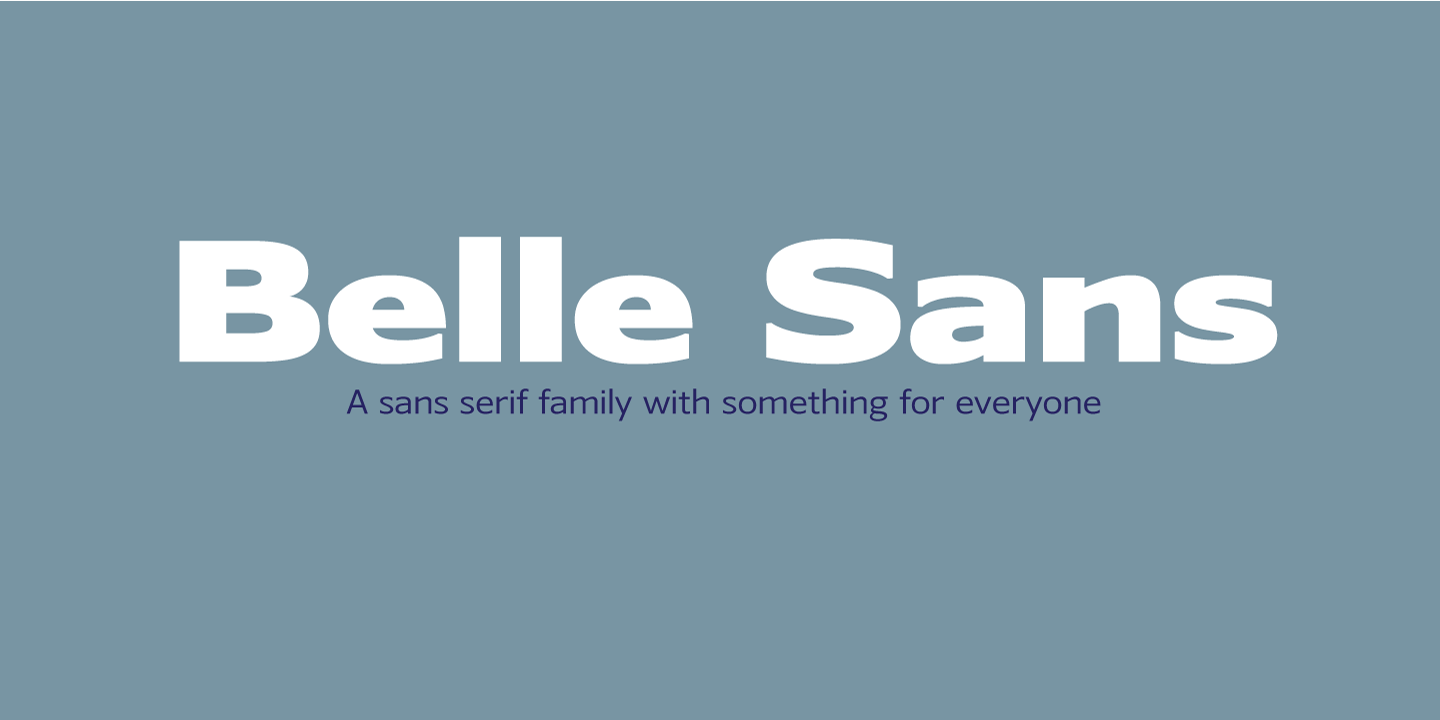
Belle Sans Font is ideal for fashion magazines, beauty product packaging, cosmetic brand identity, wedding invitations, luxury lifestyle websites, feminine blog designs, boutique signage, jewelry catalogs, spa and wellness materials, high-end restaurant menus, artisan craft branding, and elegant social media graphics. This graceful typeface perfectly captures sophisticated femininity while maintaining professional versatility across diverse design applications.
What makes Belle Sans Font so exciting is its exquisite balance of elegance and contemporary functionality that embodies refined sophistication. The font features beautifully crafted letterforms with subtle curves and delicate proportions that create an inherently feminine yet powerful presence. Its clean sans-serif structure ensures excellent readability while the carefully designed character spacing and refined details add a touch of luxury and grace to any text composition, making it perfect for brands seeking elegant distinction.
The Belle Sans Font family includes multiple weights from thin to bold, along with complementary italic styles that enhance its versatility. Each weight maintains the original's graceful character while providing comprehensive options for creating sophisticated typographic hierarchies that work seamlessly across both digital and print media applications.
Whether you're designing luxury brand identities, creating elegant marketing materials, or developing sophisticated web interfaces, Belle Sans Font Free Download offers the perfect combination of feminine elegance and professional reliability. This exceptional typeface brings refined beauty to contemporary design projects, making it an indispensable choice for designers seeking typography that communicates sophistication, grace, and modern femininity with timeless appeal.